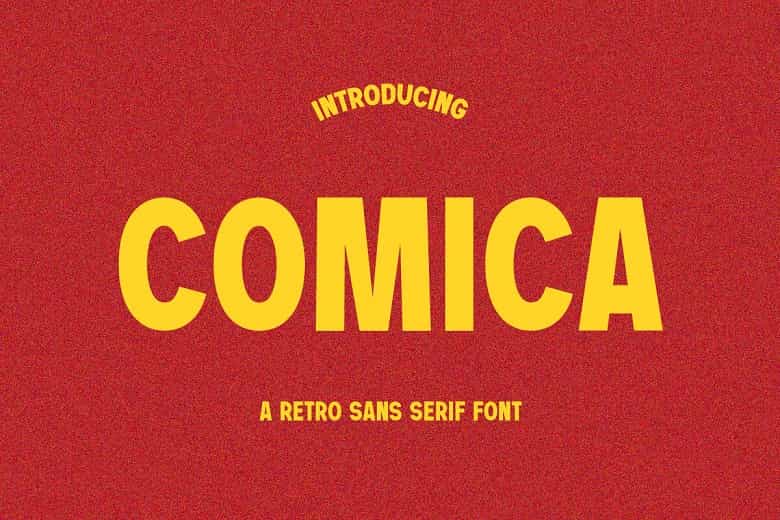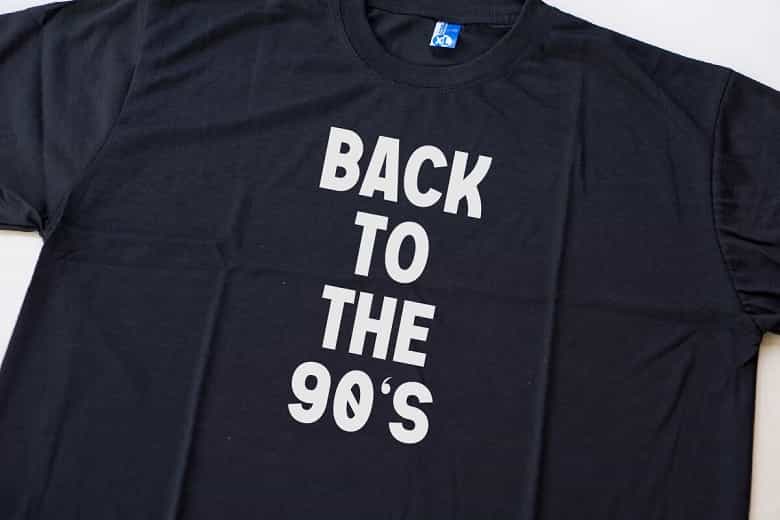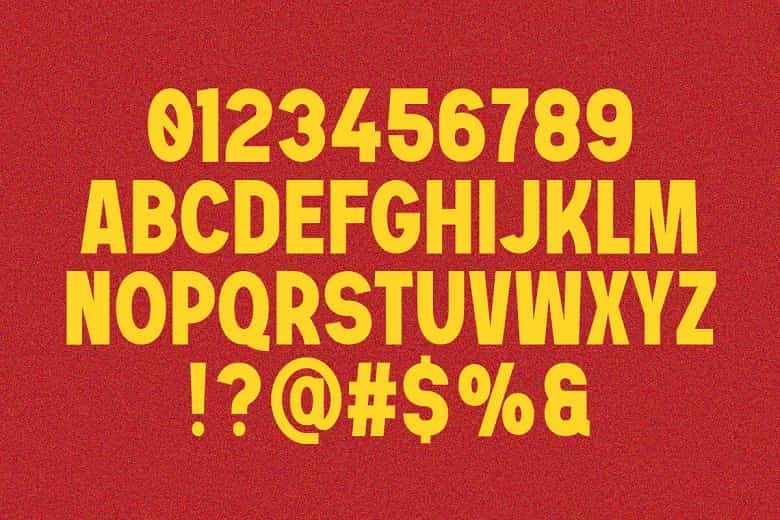
Comica is a modern sans serif font of the retro type with a rather bold and, at the same time, eye-catching look. It will be very appropriate for magazines, packaging, posters, quotes, label tag, t-shirts, book covers, photography, special events, and titles.